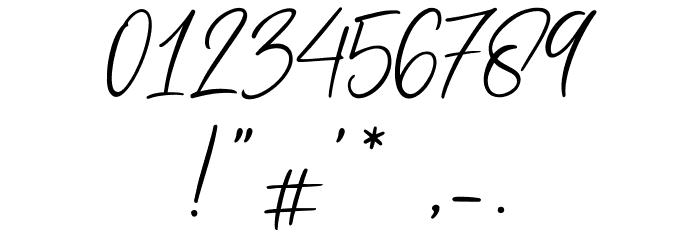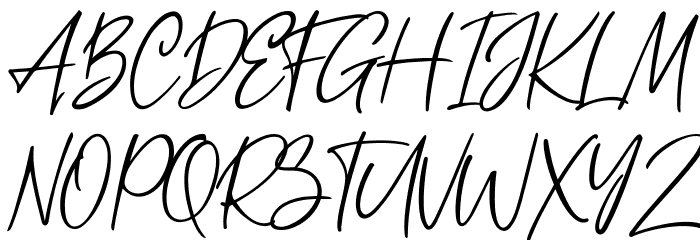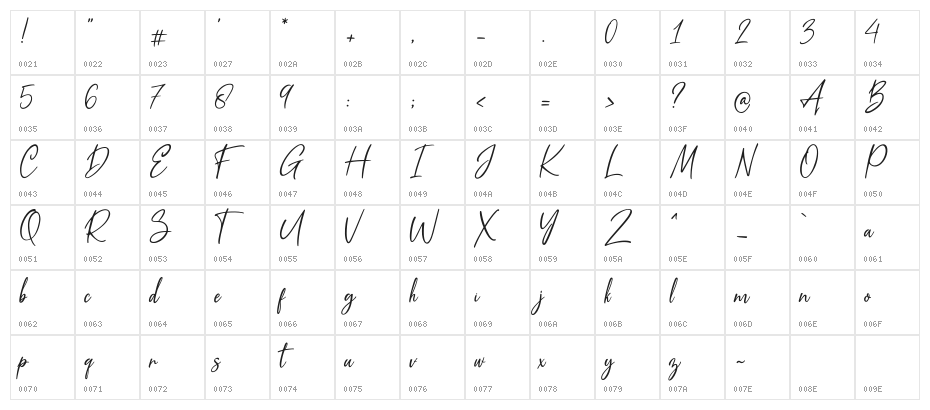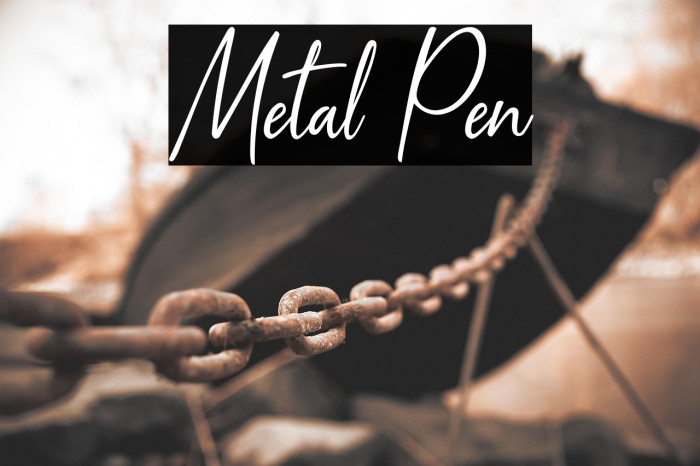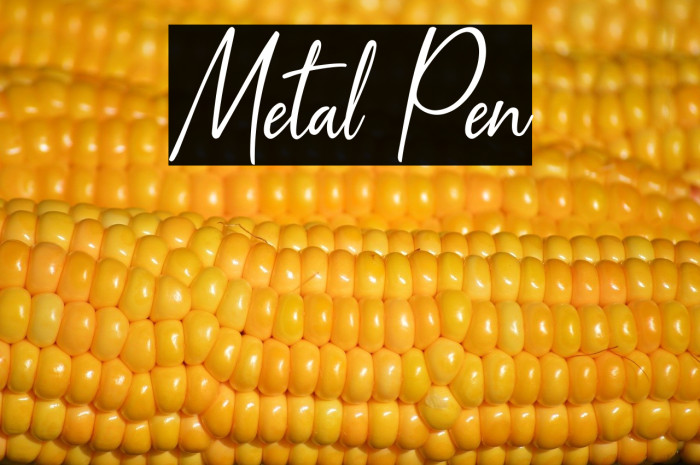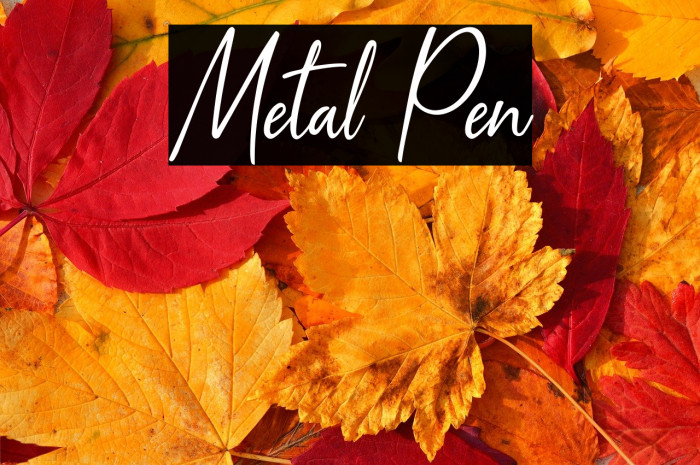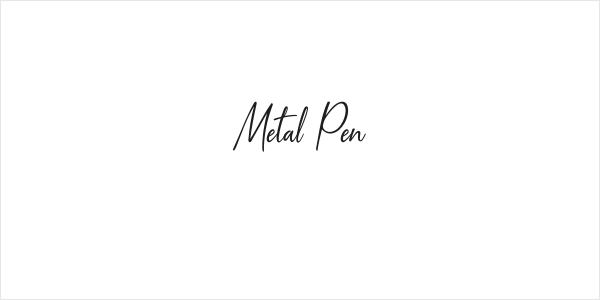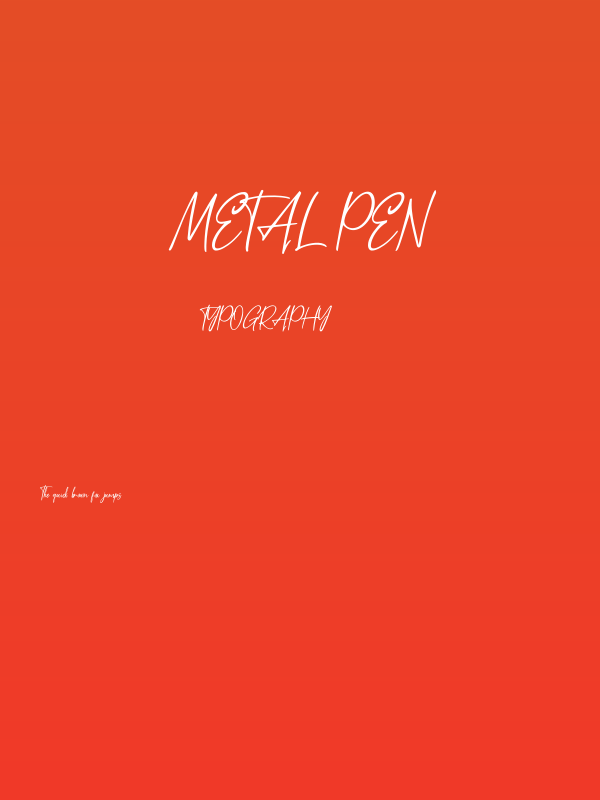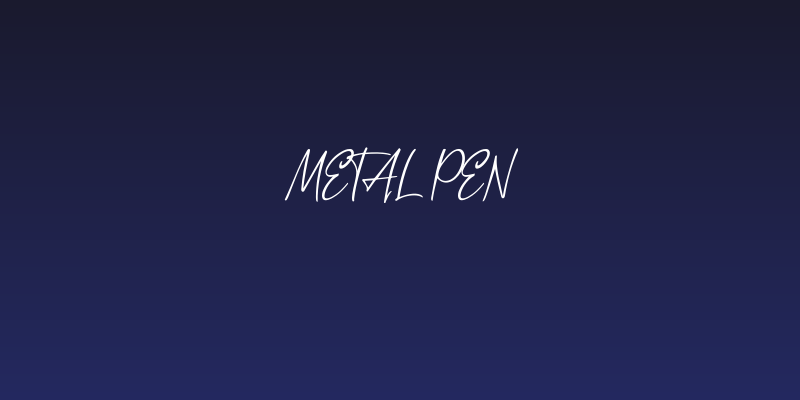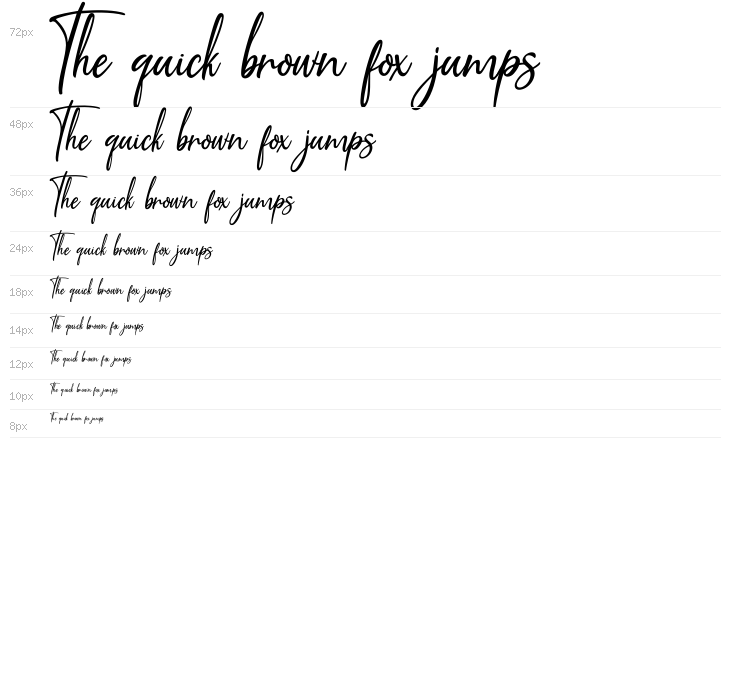
Metal Pen Font
Metal Pen Description
This font exudes a dynamic and elegant style with its fluid, cursive script. The characters are crafted with a smooth, flowing motion, reminiscent of handwriting with a fine pen. Each letter connects seamlessly, creating a harmonious and continuous line that enhances readability while maintaining an artistic flair. The uppercase letters are bold and prominent, while the lowercase letters are more delicate, providing a balanced contrast. The numerals and special characters are consistent with the overall script style, ensuring a cohesive appearance across all text elements.
| Overall Style | Elegant, Handwritten |
| Use Case | Logos, Invitations, Decorative text |
| Proposed Projects | Ideal for wedding invitations, greeting cards, personal branding, and elegant packaging designs. |